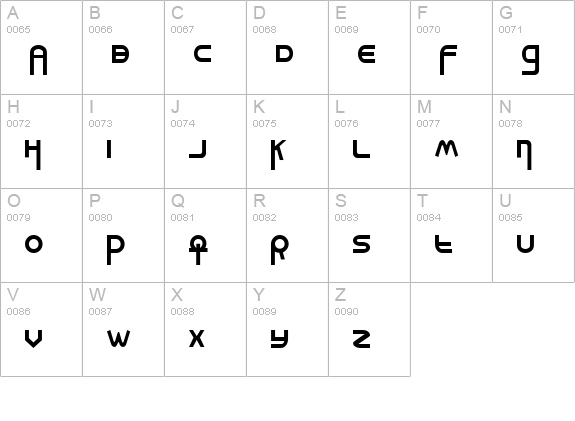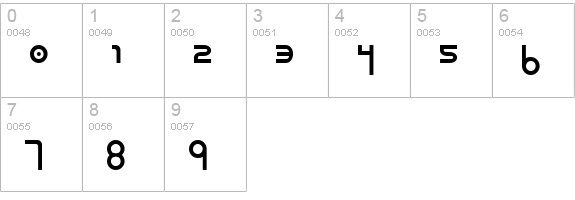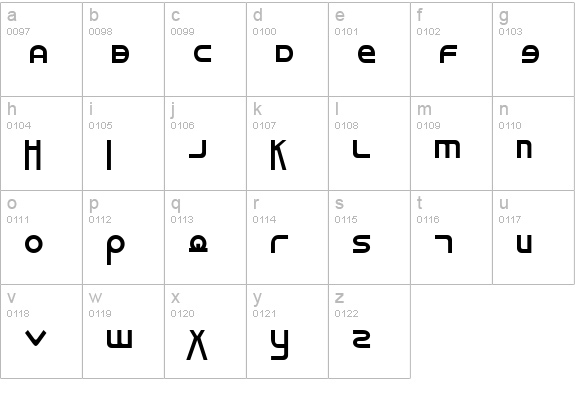
Milk Bar Font Details
Introducing Milk Bar font, a modern and stylish typeface that exudes elegance and sophistication. With its clean lines and sleek design, Milk Bar is perfect for a wide range of projects, from branding to advertising to packaging. The font features a unique combination of classic and contemporary elements, making it versatile and eye-catching. What's even better is that Milk Bar font is completely free to download at FontsMarket.com. That's right - you can add this stunning font to your collection without spending a dime. Whether you're a designer looking to elevate your work or a hobbyist seeking to enhance your projects, Milk Bar font is the perfect choice. Don't miss out on this opportunity to enhance your designs with this beautiful and free typeface. Download Milk Bar font today and take your creations to the next level!